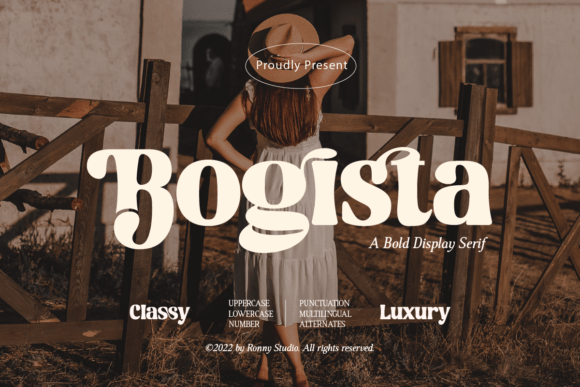
**Introducing Bogista: The Epitome of Elegance for Your Creative Creations**
Unleash the captivating allure of Bogista, an enchanting serif display font that will ignite your designs with unparalleled sophistication. Crafted meticulously by the renowned Ronny Studio, each letterform exudes an air of refined elegance, effortlessly enhancing the impact of your visual masterpieces.
Bogista's bold and graceful lines command attention, making it the perfect choice for logos that demand distinction. Its intricate details and professionally shaped characters evoke a sense of timeless class, seamlessly blending with your creations to elevate them to new heights.
Whether you're crafting eye-catching branding, captivating social media posts, or stunning invitations, Bogista will effortlessly elevate your designs, adding a touch of understated luxury and sophistication. Its versatility extends to a wide range of projects, from elegant wedding stationery to unforgettable packaging.
Indulge in the charm of Bogista and unlock the potential for truly captivating creations. Experience the difference that this exquisitely designed font can make, transforming your designs into works of art that will leave an unforgettable impression.